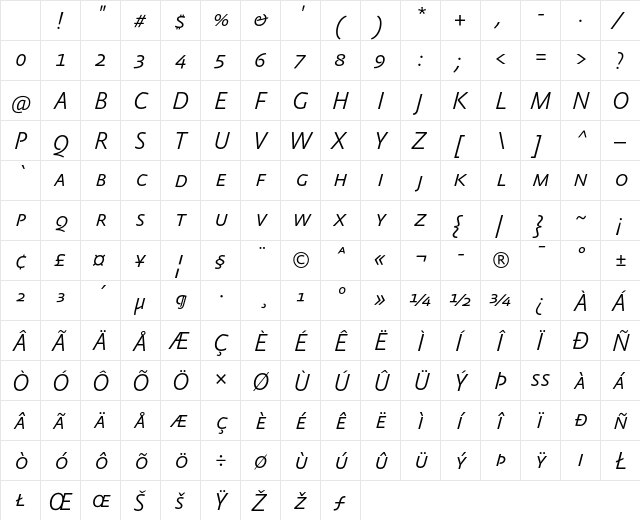
Complete AbsaraSansTF-LightItalicSC Regular glyph index. Displaying only characters natively supported by AbsaraSansTF-LightItalicSC Regular font.
AbsaraSansTF-LightItalicSC is a composed and adaptable typeface that performs quietly and consistently across a wide range of design contexts. The slanted form adds forward momentum and visual energy. Its slender proportions lend an understated elegance to any composition.